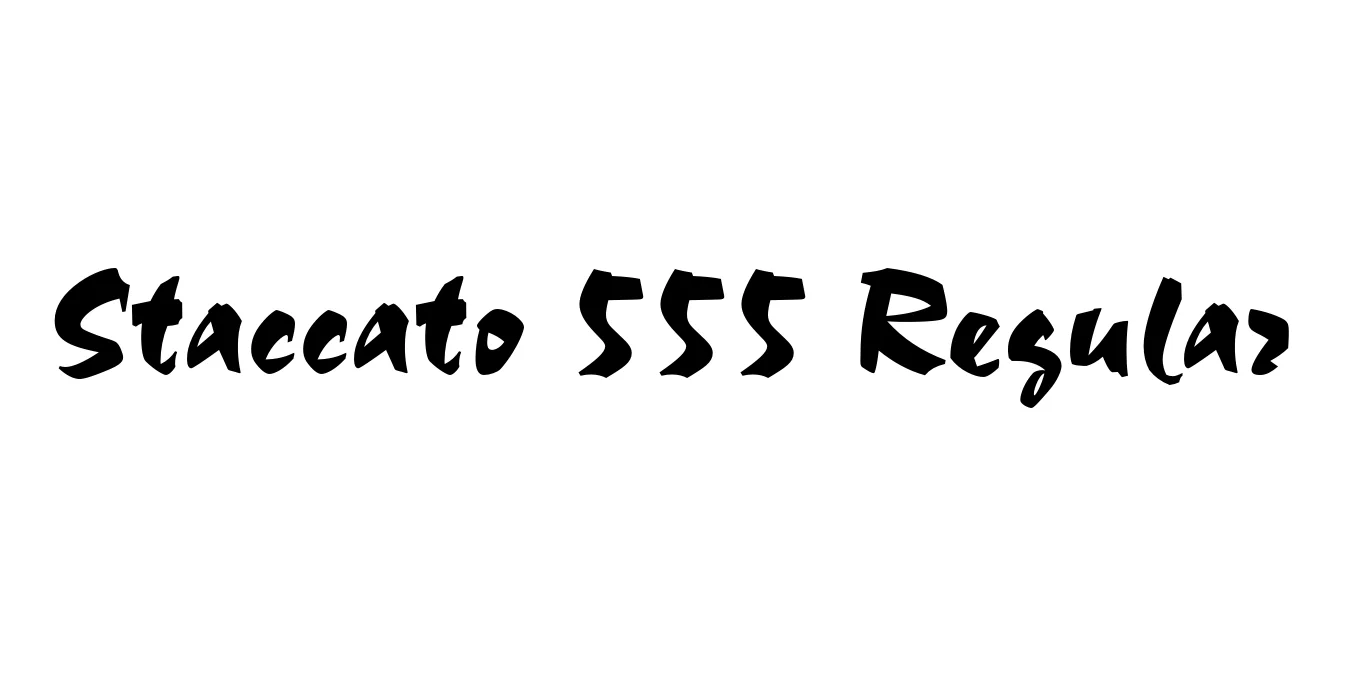
Staccato 555 Regular
Designed by Bitstream
Staccato 555 Regular is a rhythmic, informal script typeface designed by the internal team at Bitstream. It draws significant inspiration from calligraphic traditions and brush lettering, offering a natural, fluid aesthetic that mimics the speed and movement of human handwriting. The font is characterized by its varied stroke widths and expressive terminals, which give it a sense of vitality and an artistic, handcrafted feel.
Throughout the digital era, Staccato 555 has established itself as a versatile choice for designers seeking to add personality to their projects. It is particularly effective for applications that require a balance between casual charm and elegant sophistication. Its distinct character shapes make it a favorite for decorative headlines, invitation suites, and high-end branding materials where a generic sans-serif simply won't suffice.
Staccato 555 Regular Best Uses
Perfect for adding a personal and elegant touch to wedding and gala invites.
Ideal for boutique logos, artisan product labels, and creative identity design.
Excellent for headers and section titles in upscale or bistro-style menus.
Great for creating expressive quote graphics and engaging visual content.